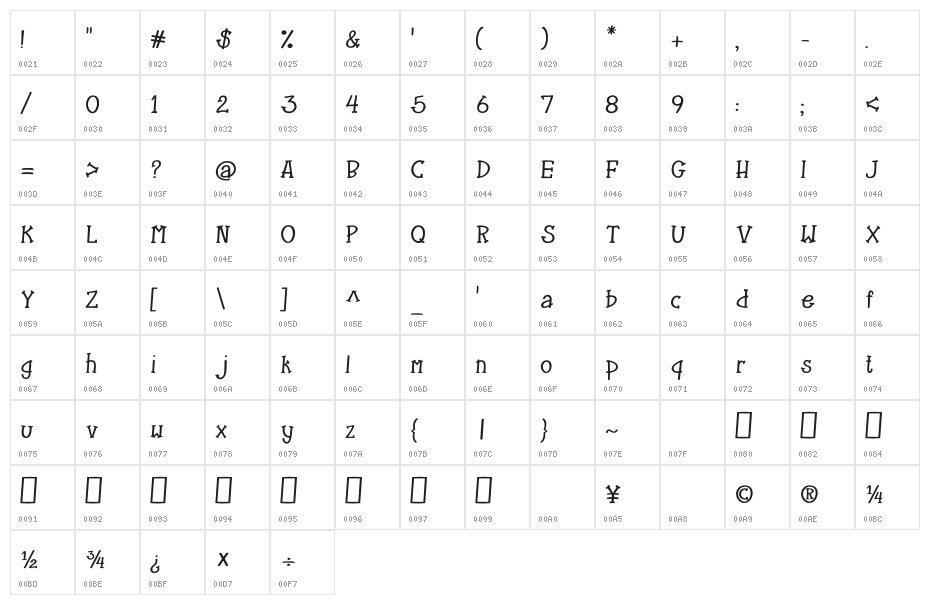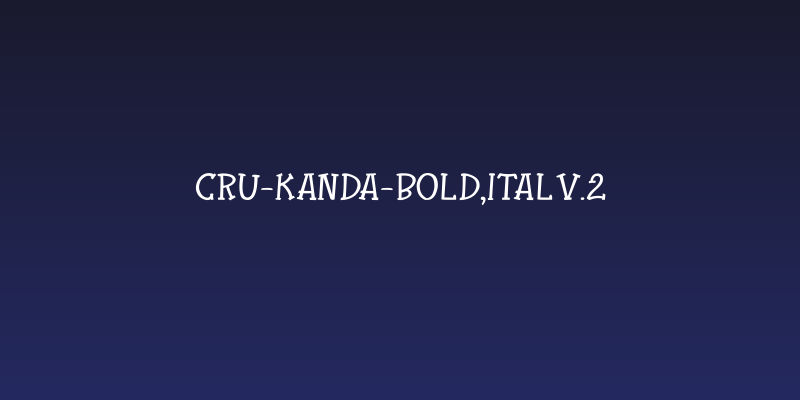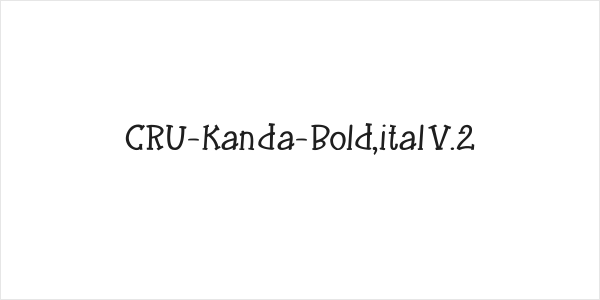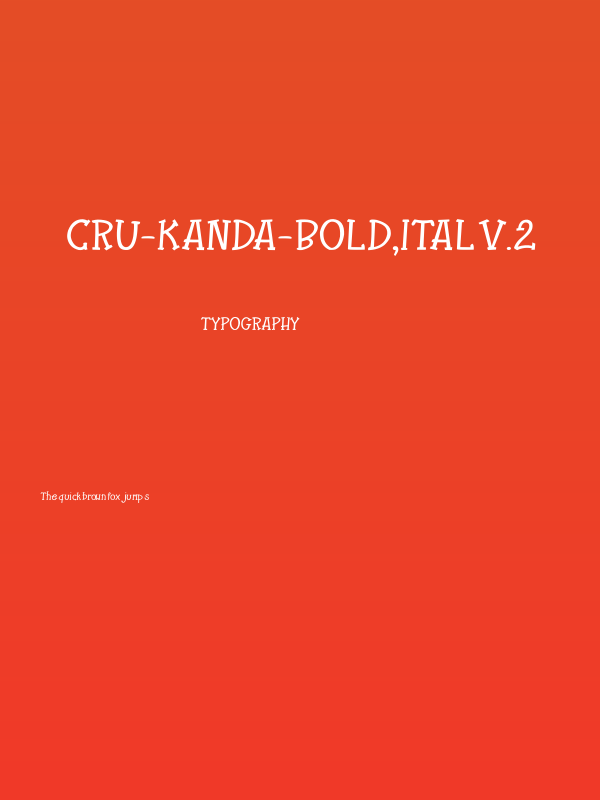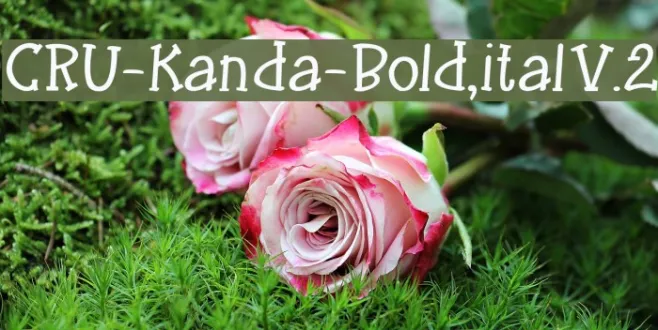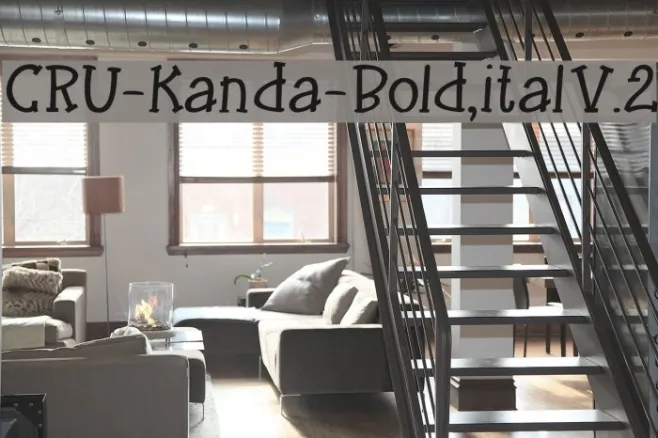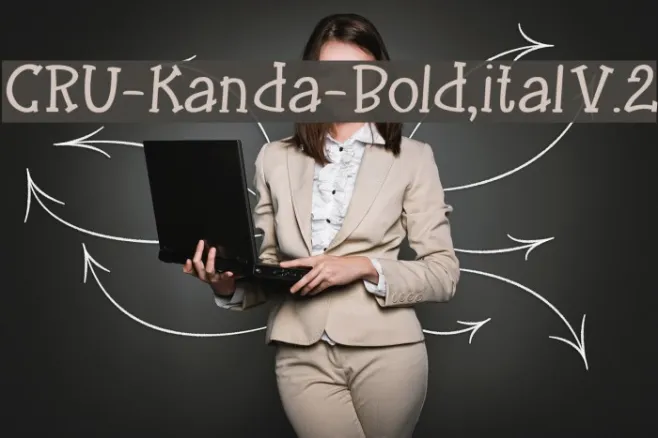
CRU-Kanda-Bold,ital V.2 Font
CRU-Kanda-Bold,ital V.2 Description
This font exhibits a playful and quirky style with a handwritten appearance. The characters are slightly tilted, adding a dynamic and informal touch. The strokes are bold and consistent, providing a strong visual impact. The uppercase letters are distinct with unique curves and angles, while the lowercase letters maintain a cohesive flow. Numbers and special characters follow the same whimsical design, making them stand out. The overall look is both modern and artistic, suitable for creative projects that require a touch of personality.
| Proposed Projects | Ideal for children's books, creative posters, playful branding, and informal invitations. |